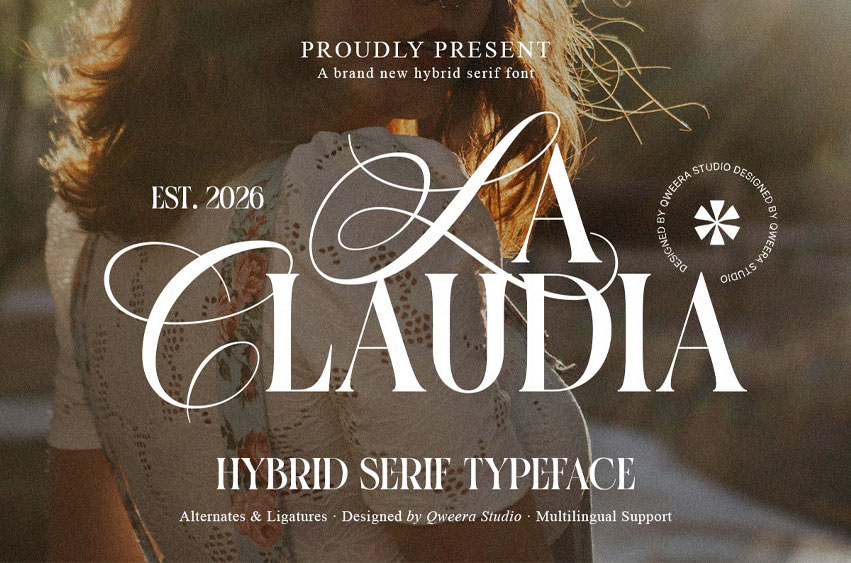
La Claudia Font is an elegant hybrid serif font designed with refined contrast, graceful curves, and expressive swash details. Blending classic serif structure with soft calligraphic movement, this typeface brings a luxurious, feminine, and editorial feel to modern design projects.
Its sophisticated letterforms, stylish alternates, and elegant ligatures make La Claudia perfect for beauty branding, luxury logos, wedding stationery, perfume packaging, fashion editorials, boutique identity, skincare labels, magazine headlines, and premium product presentations. The overall style feels graceful, romantic, timeless, and beautifully expressive.
La Claudia includes uppercase and lowercase characters, alternates and ligatures, multilingual support, professional kerning, Regular and Italic styles, plus OTF, TTF, WOFF, and WOFF2 formats for flexible print and digital use.
Create elegant typography with a little drama, a little grace, and a timeless luxury presence with La Claudia.
• Elegant hybrid serif style
• Complete uppercase and lowercase characters
• Stylish alternates and ligatures
• Multilingual character support
• Professional kerning for polished typography
• Regular and Italic font styles
• Ideal for luxury, beauty, fashion, editorial, packaging, and feminine branding